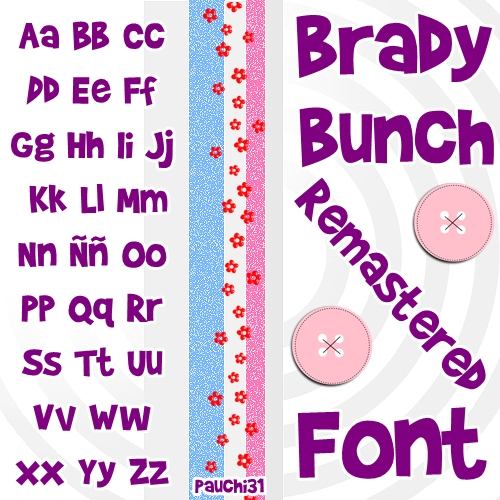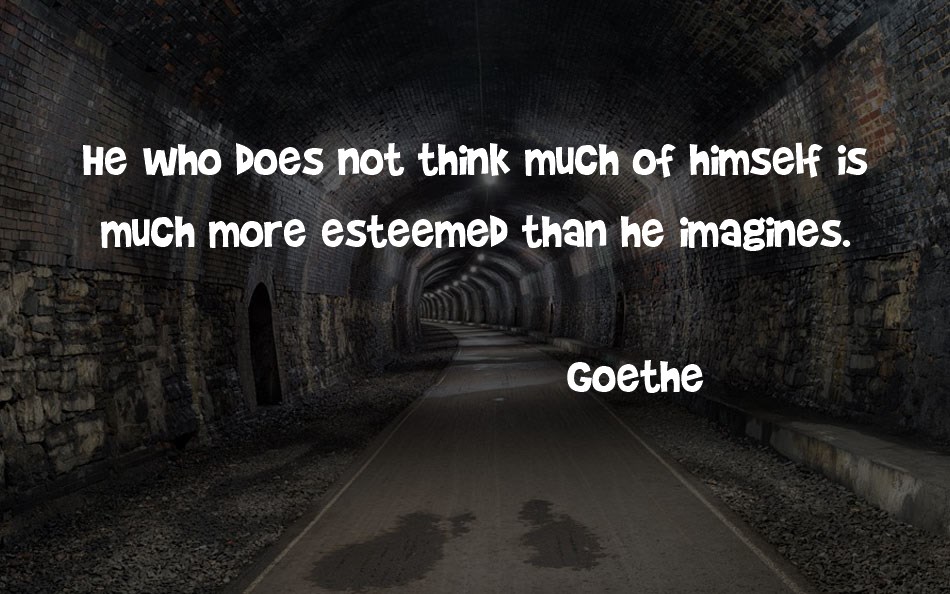
Brady Bunch Remastered Font . download this font inspired by the logo from the brady bunch tv show and movie. Brady bunch remastered by v. brady bunch remastered font download is available free from fontget. It includes international characters, a. The font used for the logo of. download brady bunch remastered font. It was created in 1985 by the typographic design team at insanitype. this font is loosely based on the logo from the brady bunch television show and movie. download brady bunch remastered, a custom font inspired by the popular tv show. This fun and playful font includes both uppercase and lowercase glyph characters. download this free font inspired by the logo of the brady bunch tv show and movie. Brady bunch remastered is a various type font that can. This font has 217 glyphs and is free for. the brady bunch is an american situation comedy that was broadcast from 1969 to 1974 on abc. The original version was made from.
download this free font inspired by the logo of the brady bunch tv show and movie. download this font inspired by the logo from the brady bunch tv show and movie. The font used for the logo of. This font has 217 glyphs and is free for. Brady bunch remastered by v. download brady bunch remastered, a custom font inspired by the popular tv show. the brady bunch is an american situation comedy that was broadcast from 1969 to 1974 on abc. It includes international characters, a. Brady bunch remastered is a various type font that can. the name of the brady bunch font that is most like the logo lettering for this tv series is a typeface by the name of brady bunch remastered.
Brady Bunch Remastered Font Brady bunch remastered by v. This font has 217 glyphs and is free for. The original version was made from. Brady bunch remastered by v. The font used for the logo of. the name of the brady bunch font that is most like the logo lettering for this tv series is a typeface by the name of brady bunch remastered. download this free font inspired by the logo of the brady bunch tv show and movie. download brady bunch remastered, a custom font inspired by the popular tv show. download this font inspired by the logo from the brady bunch tv show and movie. this font is loosely based on the logo from the brady bunch television show and movie. Brady bunch remastered is a various type font that can. This fun and playful font includes both uppercase and lowercase glyph characters. brady bunch remastered font download is available free from fontget. download brady bunch remastered font. the brady bunch is an american situation comedy that was broadcast from 1969 to 1974 on abc. It was created in 1985 by the typographic design team at insanitype.
Brady Bunch Remastered Abstract Fonts Download Free Fonts Brady Bunch Remastered Font Brady bunch remastered is a various type font that can. download brady bunch remastered font. the brady bunch is an american situation comedy that was broadcast from 1969 to 1974 on abc. The font used for the logo of. download this free font inspired by the logo of the brady bunch tv show and movie. download. Brady Bunch Remastered Font.
Brady Bunch Remastered Font by Pauchi31 on DeviantArt Brady Bunch Remastered Font download brady bunch remastered, a custom font inspired by the popular tv show. The font used for the logo of. download this font inspired by the logo from the brady bunch tv show and movie. It includes international characters, a. the name of the brady bunch font that is most like the logo lettering for this tv. Brady Bunch Remastered Font.
Brady Bunch Remastered Font Dafont Free Brady Bunch Remastered Font It was created in 1985 by the typographic design team at insanitype. download brady bunch remastered font. brady bunch remastered font download is available free from fontget. It includes international characters, a. Brady bunch remastered by v. The font used for the logo of. The original version was made from. download this free font inspired by the. Brady Bunch Remastered Font.
Brady Bunch Remastered font Font Tr Brady Bunch Remastered Font the brady bunch is an american situation comedy that was broadcast from 1969 to 1974 on abc. download this font inspired by the logo from the brady bunch tv show and movie. brady bunch remastered font download is available free from fontget. download brady bunch remastered, a custom font inspired by the popular tv show. This. Brady Bunch Remastered Font.
Brady Bunch Remastered Font this font is loosely based on the logo from the brady bunch television show and movie. brady bunch remastered font download is available free from fontget. download brady bunch remastered, a custom font inspired by the popular tv show. download this free font inspired by the logo of the brady bunch tv show and movie. The. Brady Bunch Remastered Font.
Brady Bunch Remastered Font Free Font Download Fonts Tube Brady Bunch Remastered Font this font is loosely based on the logo from the brady bunch television show and movie. Brady bunch remastered is a various type font that can. This font has 217 glyphs and is free for. This fun and playful font includes both uppercase and lowercase glyph characters. Brady bunch remastered by v. It was created in 1985 by the. Brady Bunch Remastered Font.
Brady Bunch Remastered font details Font Generator Brady Bunch Remastered Font The original version was made from. this font is loosely based on the logo from the brady bunch television show and movie. download brady bunch remastered font. Brady bunch remastered is a various type font that can. This font has 217 glyphs and is free for. It was created in 1985 by the typographic design team at insanitype.. Brady Bunch Remastered Font.
Brady Bunch Remastered Regular Download For Free, View Sample Text Brady Bunch Remastered Font The font used for the logo of. It was created in 1985 by the typographic design team at insanitype. Brady bunch remastered is a various type font that can. Brady bunch remastered by v. download this font inspired by the logo from the brady bunch tv show and movie. the name of the brady bunch font that is. Brady Bunch Remastered Font.
Brady Bunch remastered Font in truetype .ttf opentype .otf format free Brady Bunch Remastered Font download this free font inspired by the logo of the brady bunch tv show and movie. It includes international characters, a. Brady bunch remastered is a various type font that can. Brady bunch remastered by v. download brady bunch remastered font. the name of the brady bunch font that is most like the logo lettering for this. Brady Bunch Remastered Font.